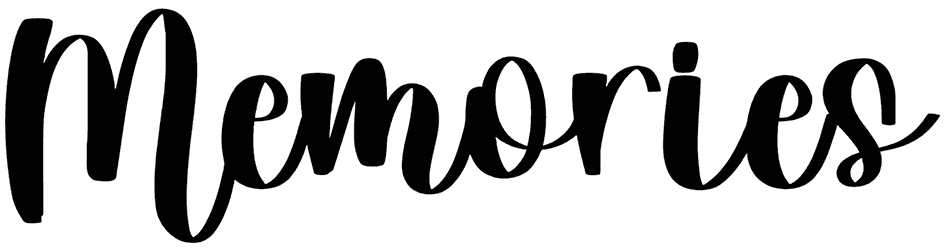
Memories Font
If you haven’t dared to break your mental frames and think outside the box, Memories will help you face your fears. By using this script font, you can walk on the smoothest path to establish a deep human connection and directly target the hearts of your audience.
This handmade font can convey multiple messages, ideas, and complex values in the simplest way, suitable for use in logos, business cards, packaging, and posters.